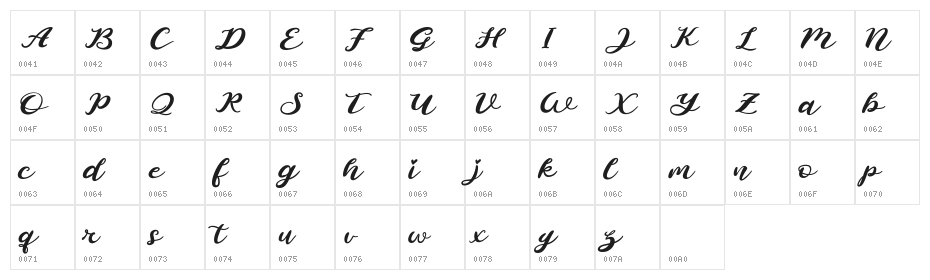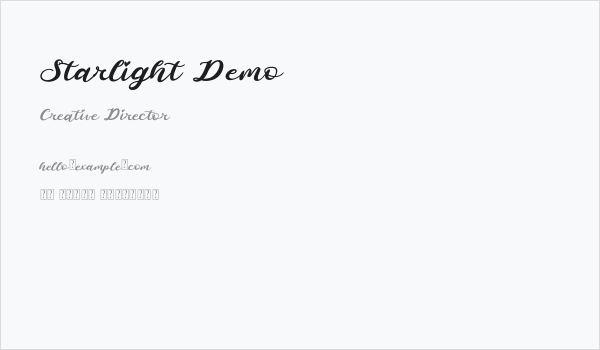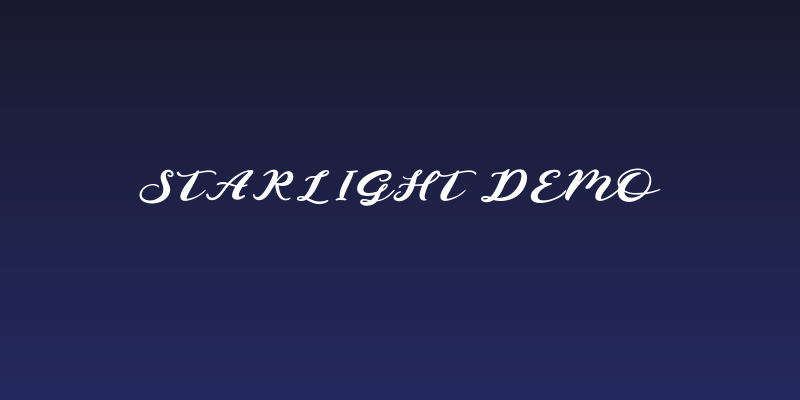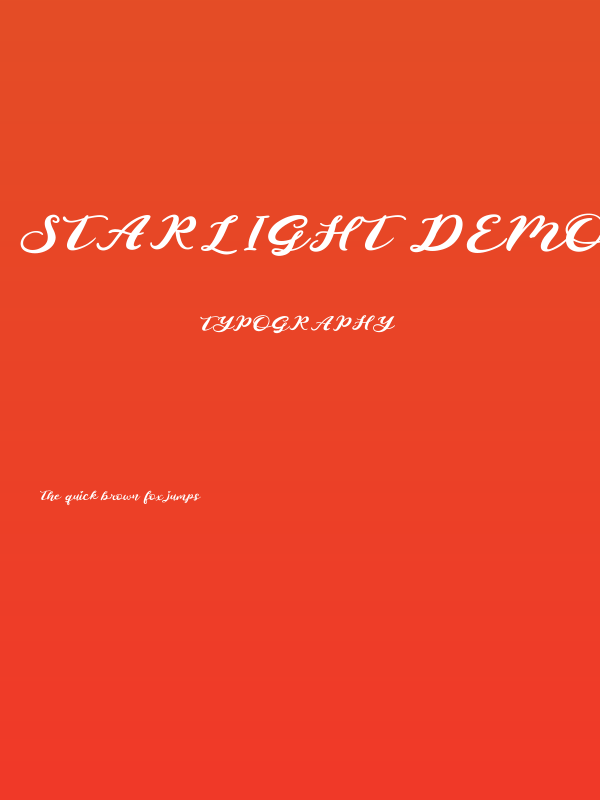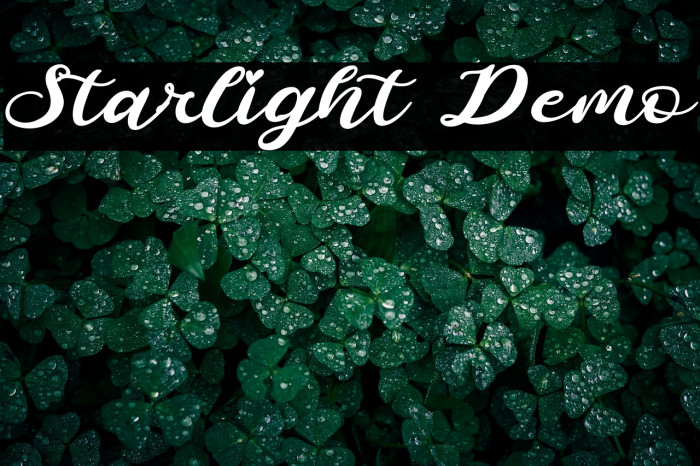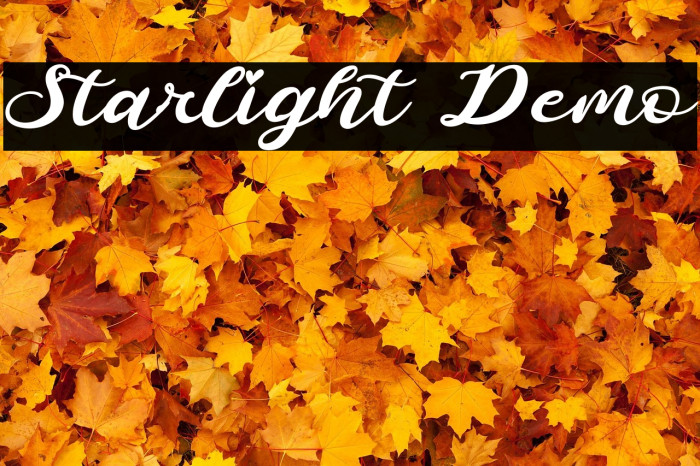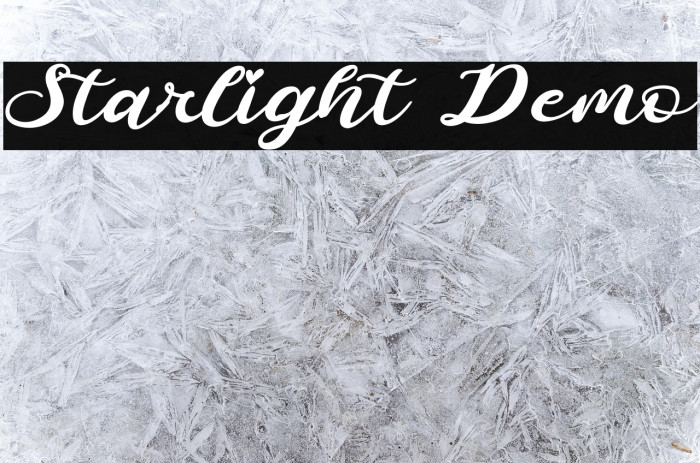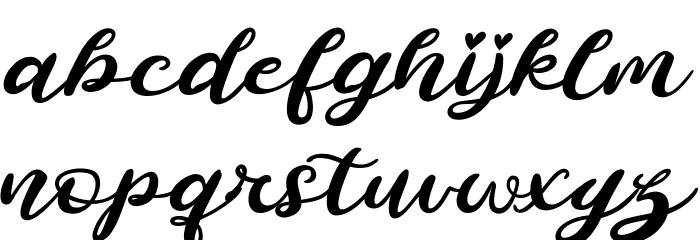
Starlight Demo Font
Starlight Demo Description
This font exudes elegance and sophistication with its flowing, cursive style. The characters are intricately designed, featuring smooth curves and a consistent stroke width that adds to its graceful appearance. The uppercase letters are particularly ornate, with flourishes that enhance their visual appeal. The lowercase letters maintain a harmonious balance, complementing the uppercase with their rounded forms and gentle slants. This font is ideal for projects that require a touch of class and refinement, such as wedding invitations, formal event programs, or high-end branding materials. Its artistic flair makes it suitable for decorative purposes, while its readability ensures it remains functional.
| Use Case | Headlines, Invitations, Decorative text |
| Proposed Projects | Wedding invitations, formal event programs, high-end branding materials. |